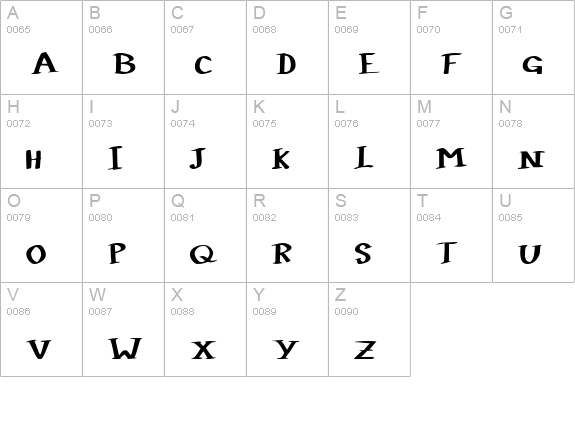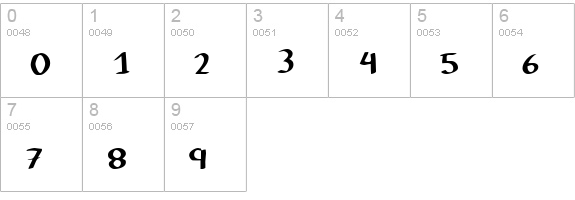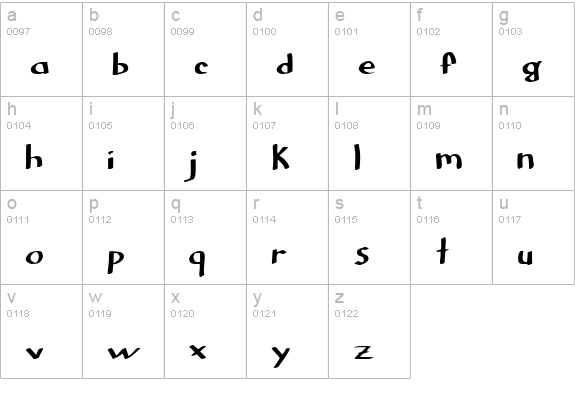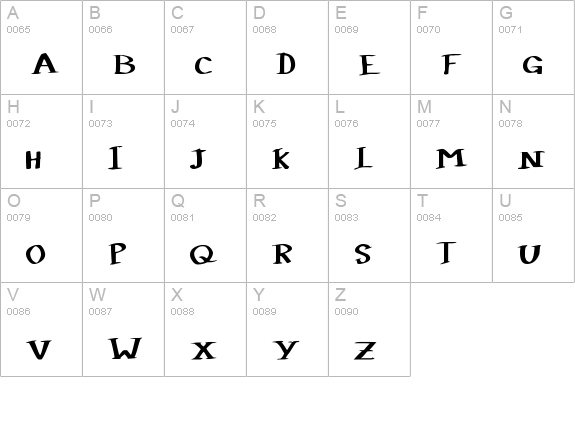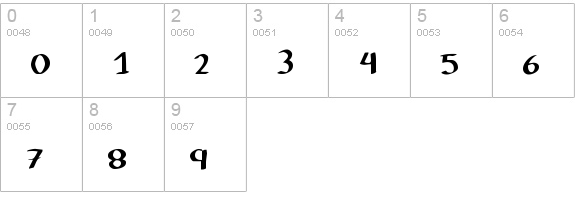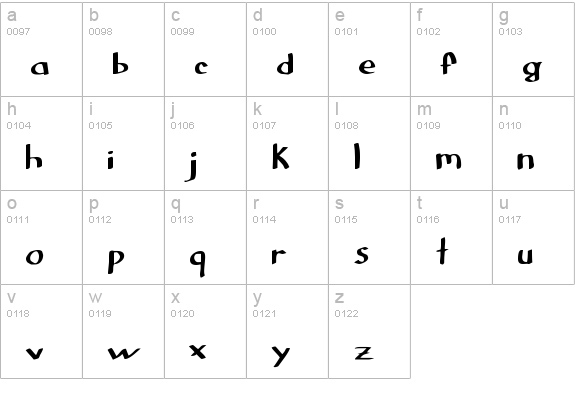
Colophon DBZ Font Details
Colophon DBZ is a sleek and modern typeface that exudes sophistication and style. With its clean lines and distinctive shapes, this font is perfect for adding a touch of elegance to any project. Whether you're designing a logo, creating a poster, or crafting a website, Colophon DBZ will make your text stand out. What's even better is that Colophon DBZ is completely free to use! You can download this font for free at FontsMarket.com and start using it in your designs right away. Don't miss out on this fantastic opportunity to enhance your work with a premium font at no cost. Download Colophon DBZ today and take your designs to the next level.